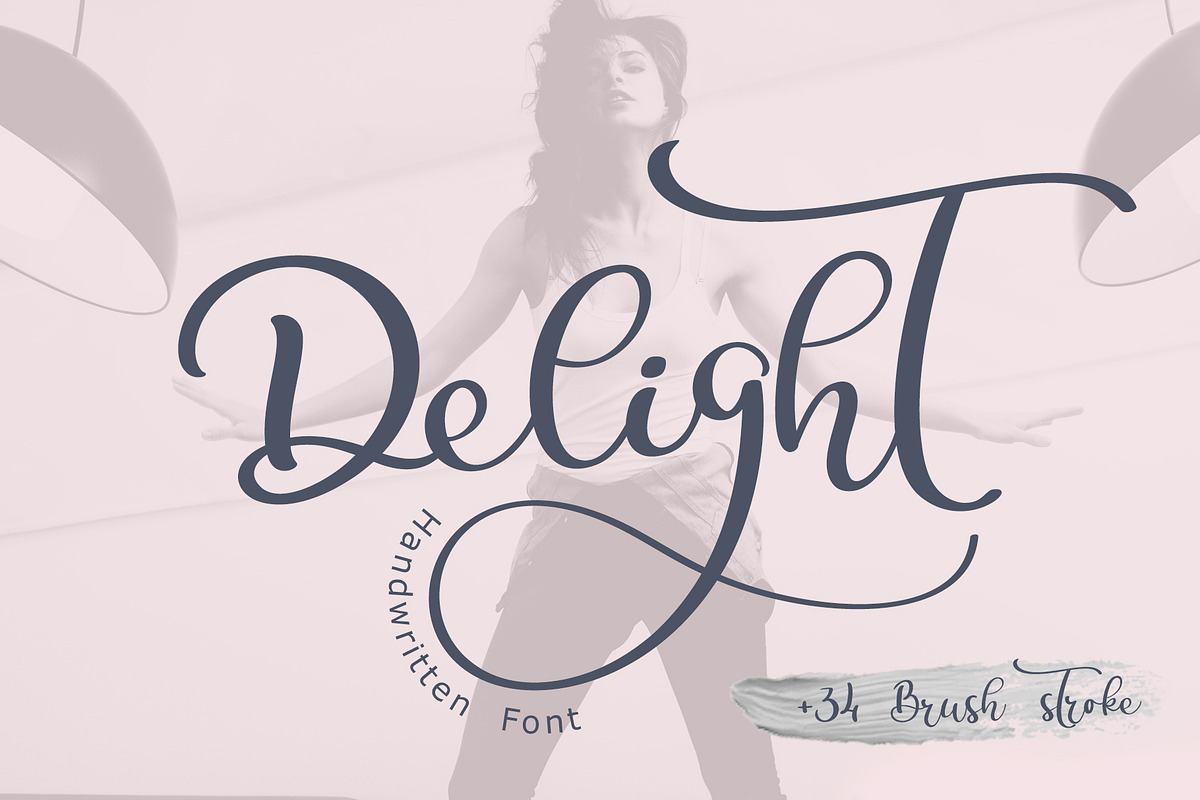
Calligraphy Wedding Font Delight Free Download
Calligraphy Wedding Font Delight Free Download is a graceful and romantic script typeface designed to elevate your most special occasions. With elegant swashes, delicate strokes, and timeless beauty, this font is perfect for wedding invitations, save-the-dates, menus, signage, and upscale event branding.
Its hand-lettered charm and luxurious flow make every word feel personal and meaningful—ideal for couples, designers, and creatives who want to add heartfelt sophistication to their work. Whether you're crafting stationery or creating a wedding logo, this font sets the perfect tone of love and celebration.
Easy to use and stunning in both print and digital formats, it’s a must-have for elegant event design.